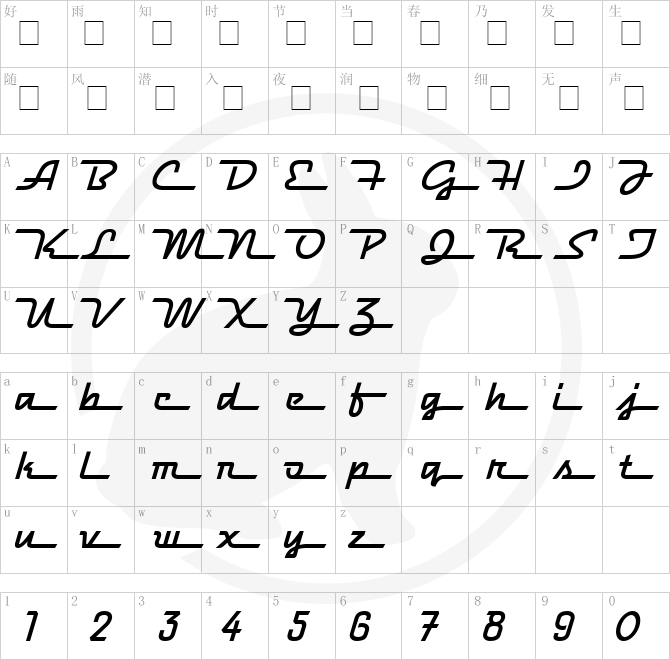
- Font Name:Raceway
Raceway-Medium.ttf is a very beautiful artistic font, Raceway-Medium.ttf is widely used in the design and printing of various books and pictures,Raceway-Medium.ttf has a strong visual impact,Raceway-Medium.ttf is a commonly used font in newspapers, magazines and books, and is used in posters, e-commerce Poster design, store design, logo design, font design and other fields.Raceway-Medium.